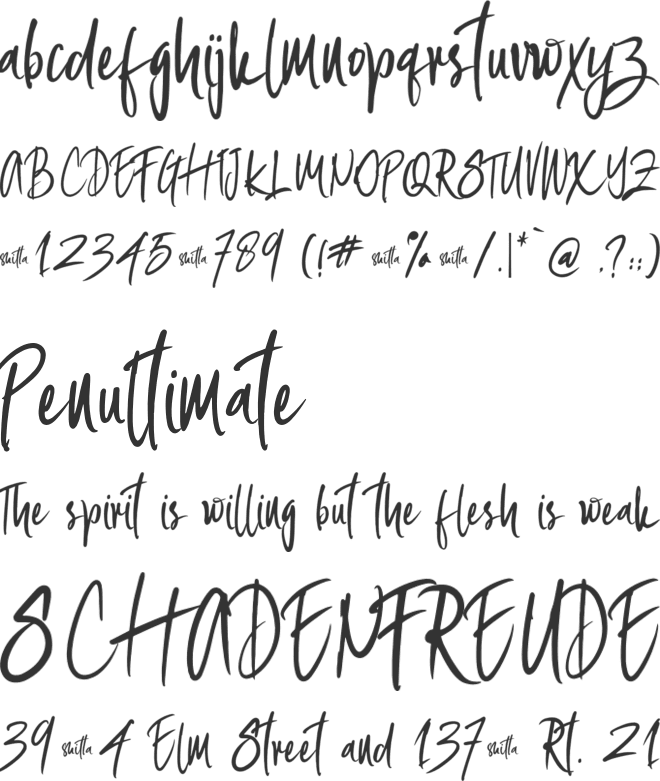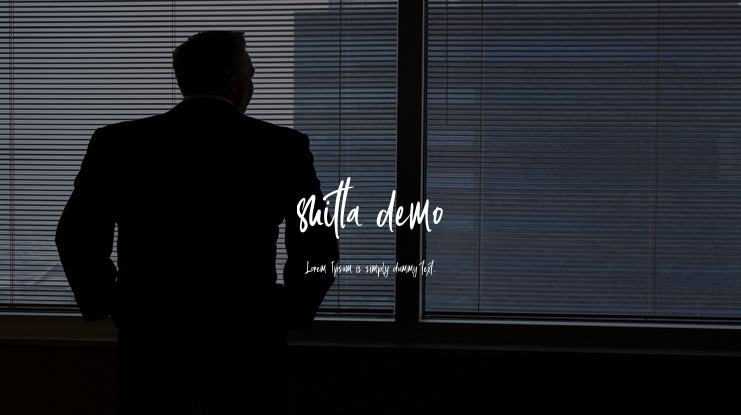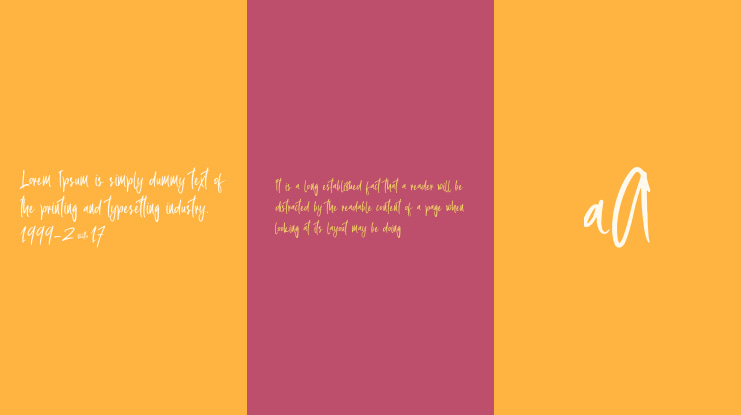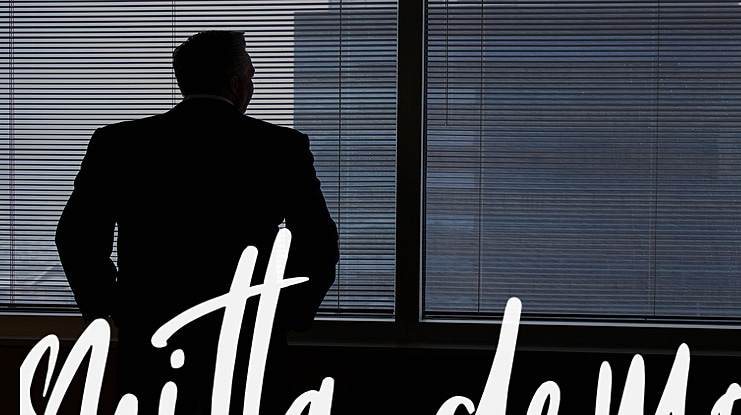
shitta demo Font
shitta Script, an elegant modern calligraphy font inspired by delicate inky hand lettering, gorgeous wedding calligraphy and trending minimal branding designs. link to purchase full version and commercial license: